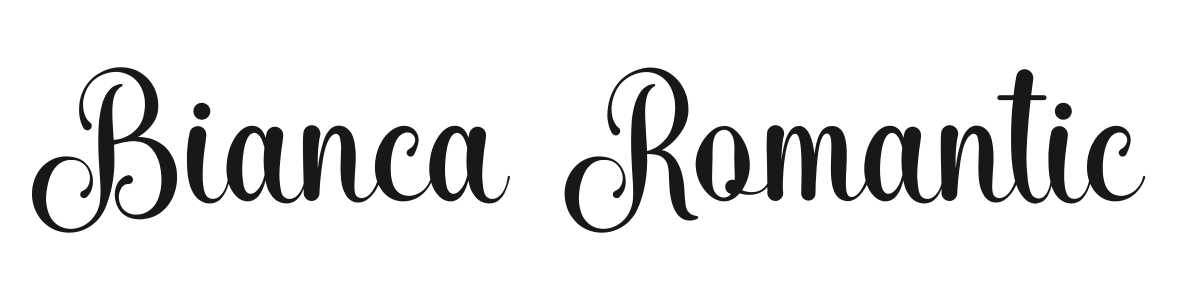
Bianca Romantic
Bianca Romantic is a flowing casual script with bouncy rhythms and generous looping curves on ascenders and descenders. The moderate stroke contrast and smooth joins strike a balance between calligraphic polish and relaxed handwritten personality. It reads immediately as warm and approachable, landing naturally on wedding stationery, packaging, and lifestyle branding.